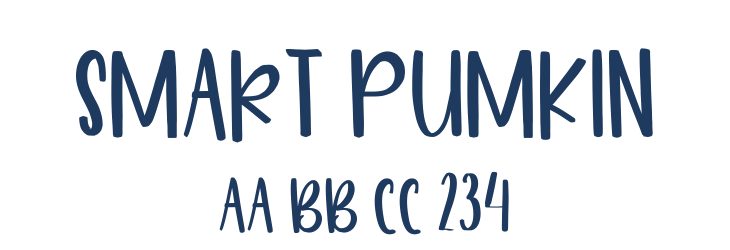
Smart Pumkin Font
Font by Goodrichees
Smart home Display Font
Font by ToniStudio - Fatoni Nurman - Personal-use only. For commercial use please contact owner.
A playful and whimsical font with curvy, exaggerated letterforms and consistent stroke width.
Hilton Light Font
Font by Smart Designs - Personal-use only. For commercial use please contact owner.
A lively, cursive font with a handwritten style.